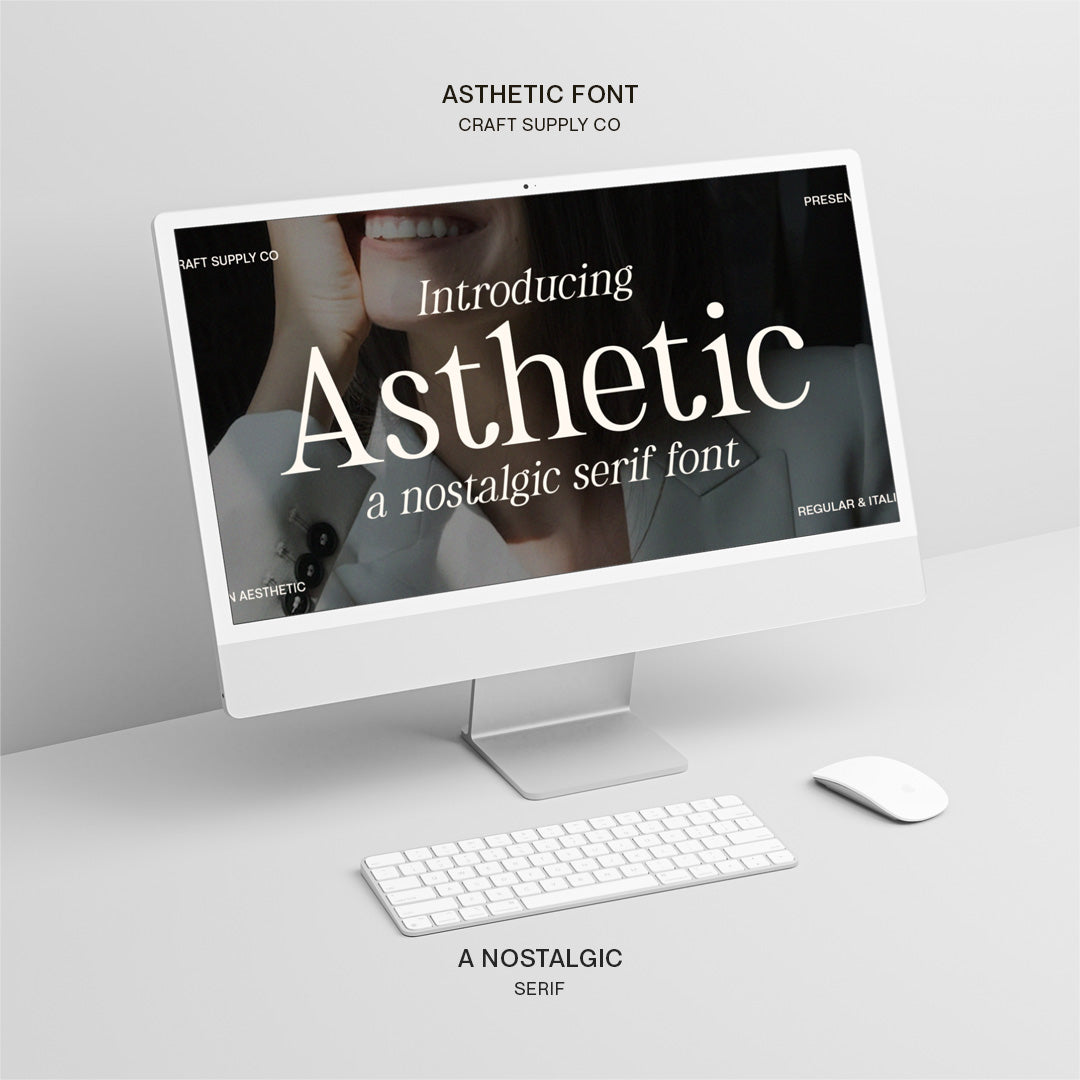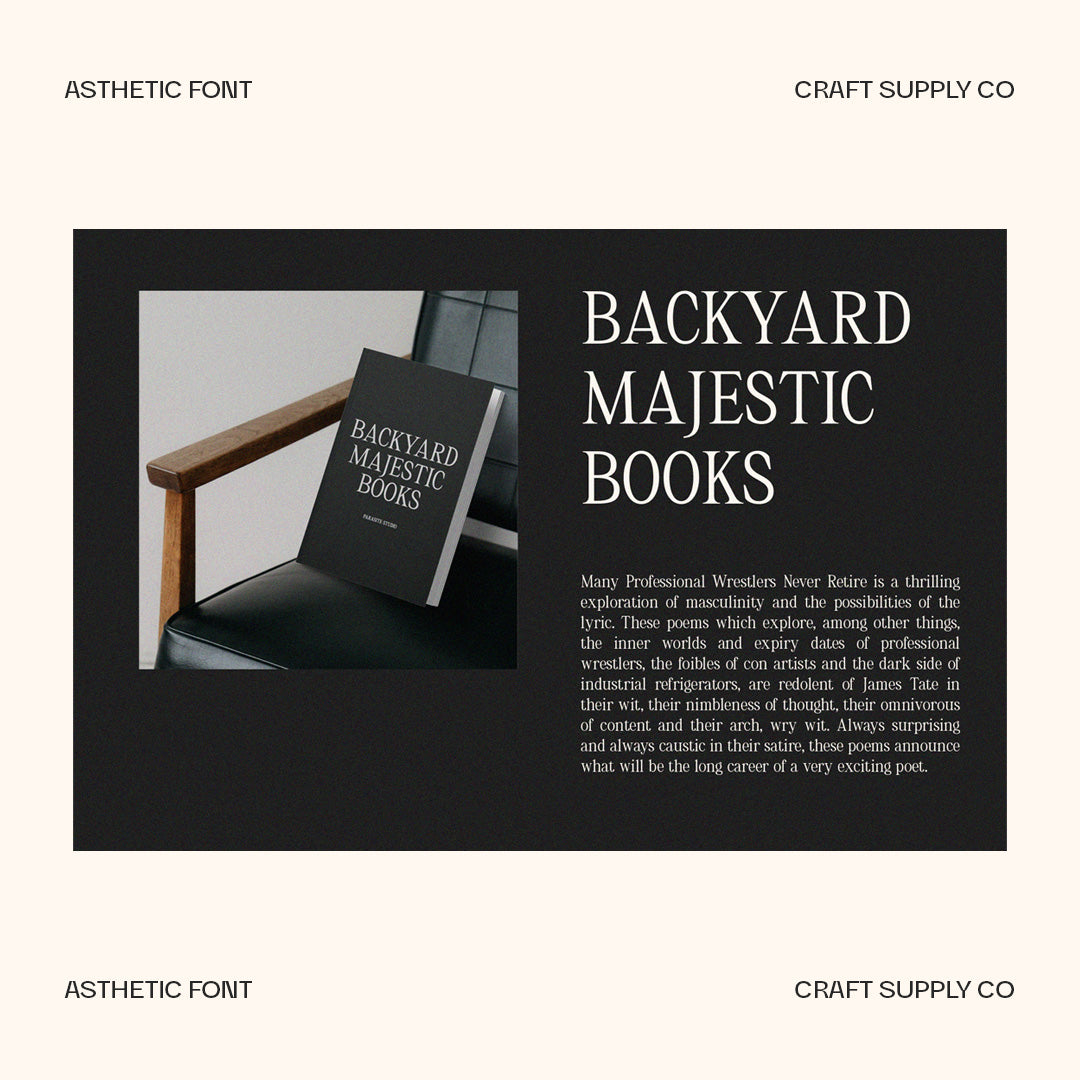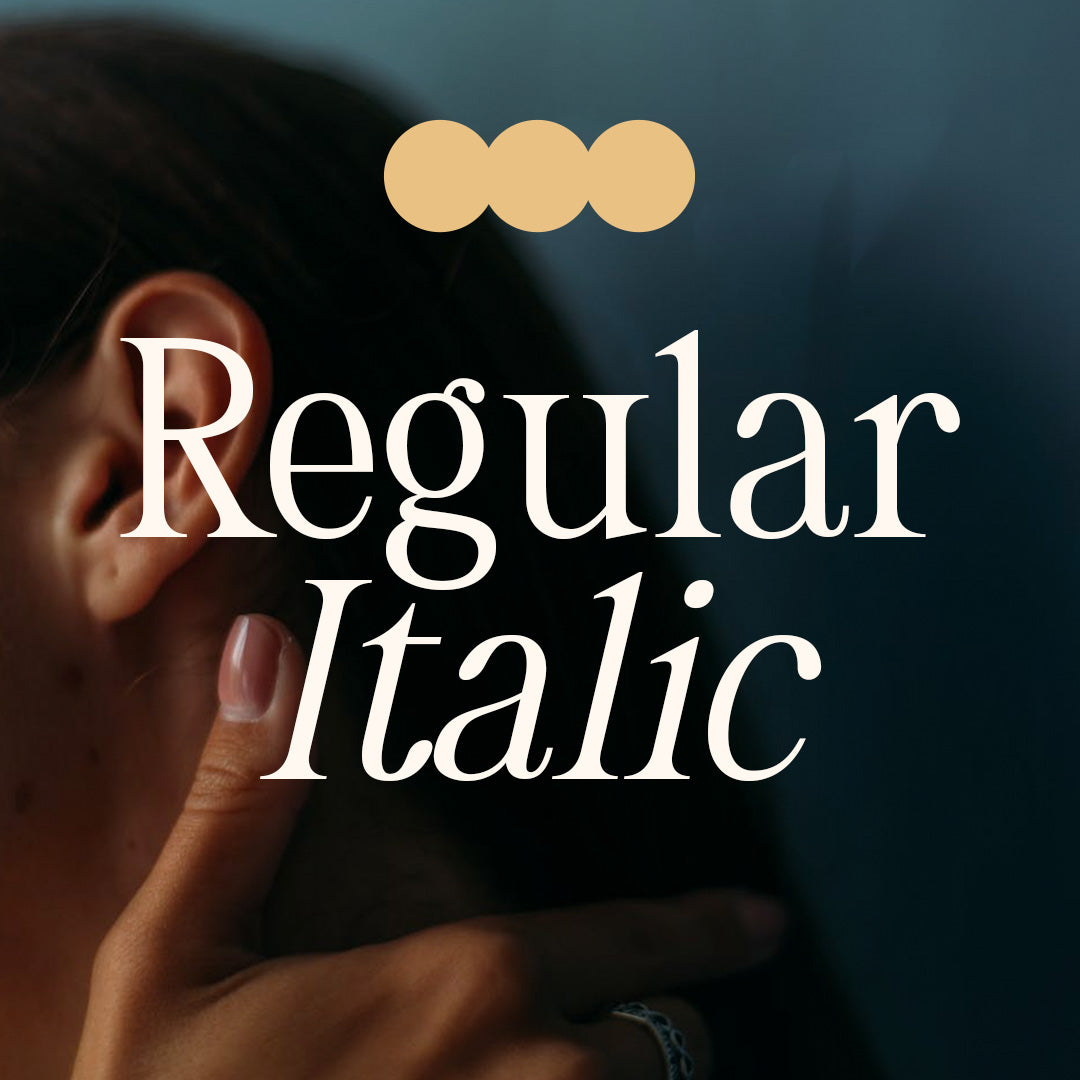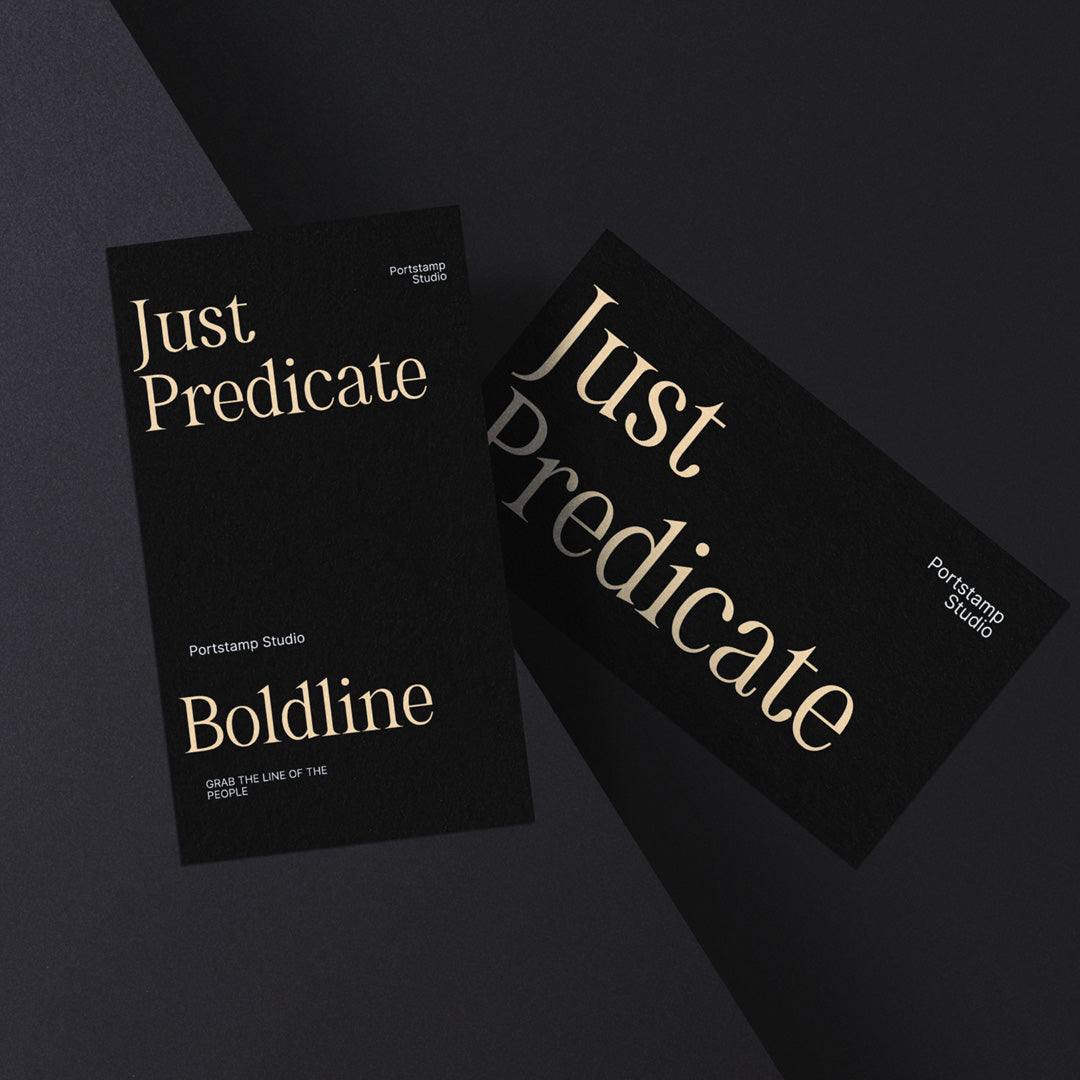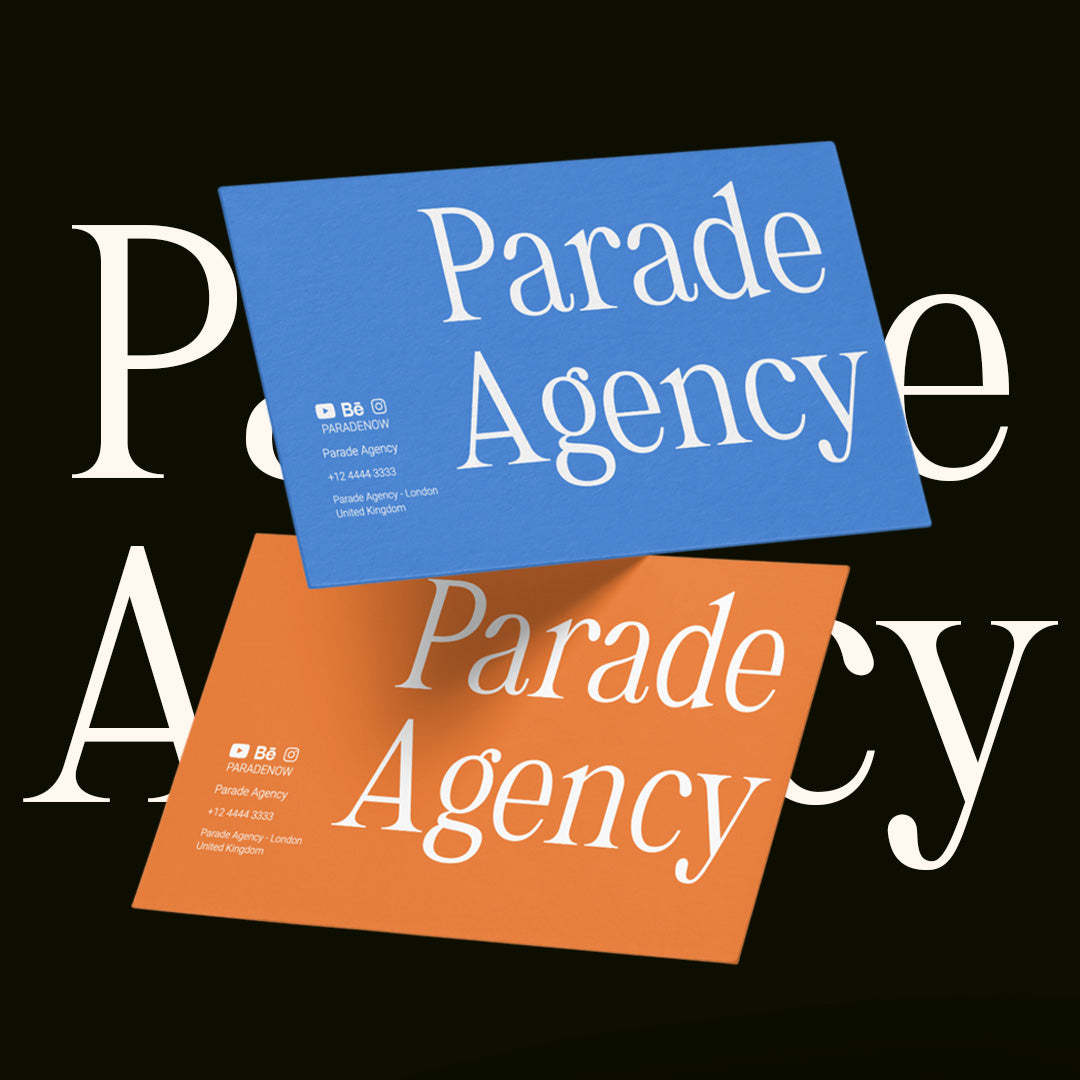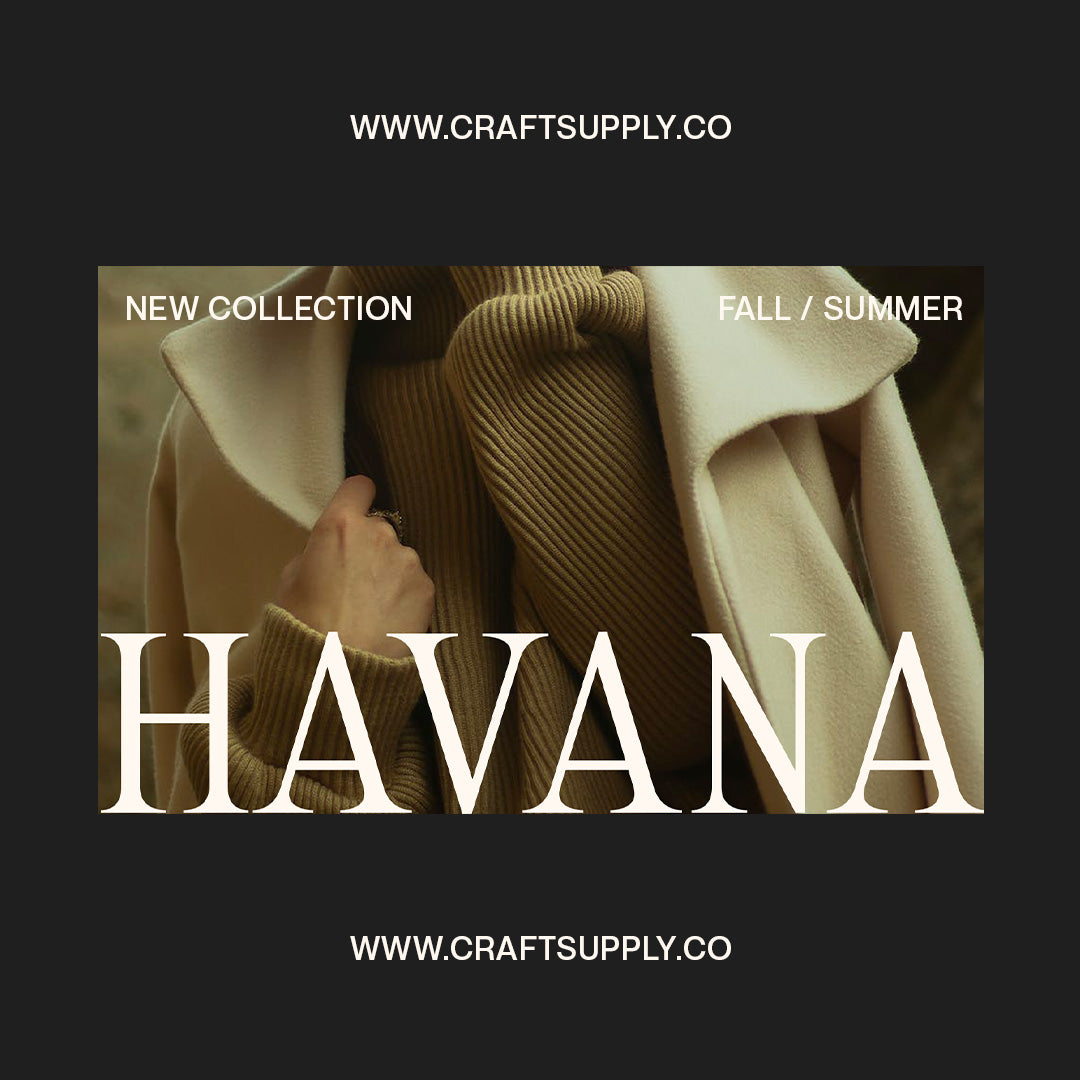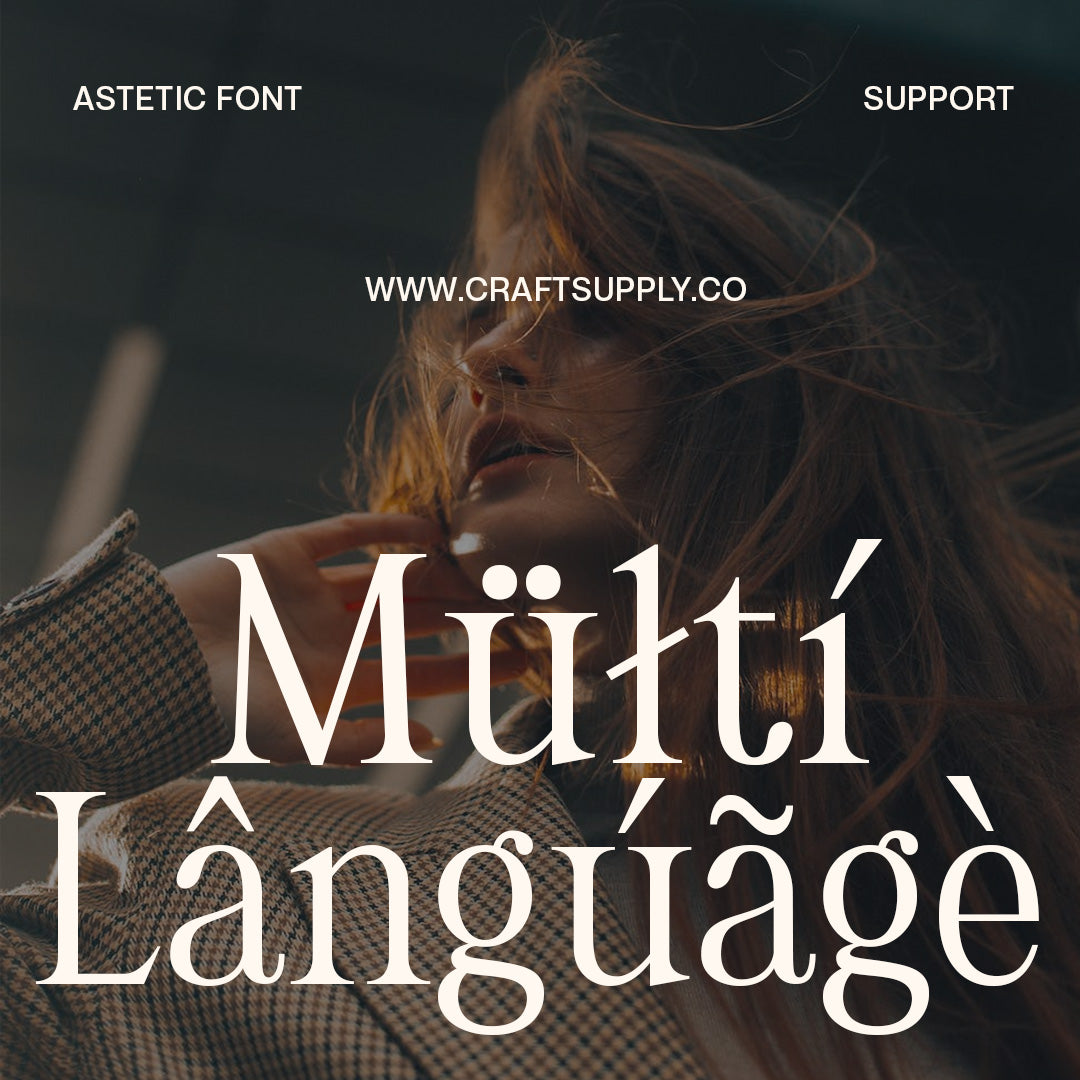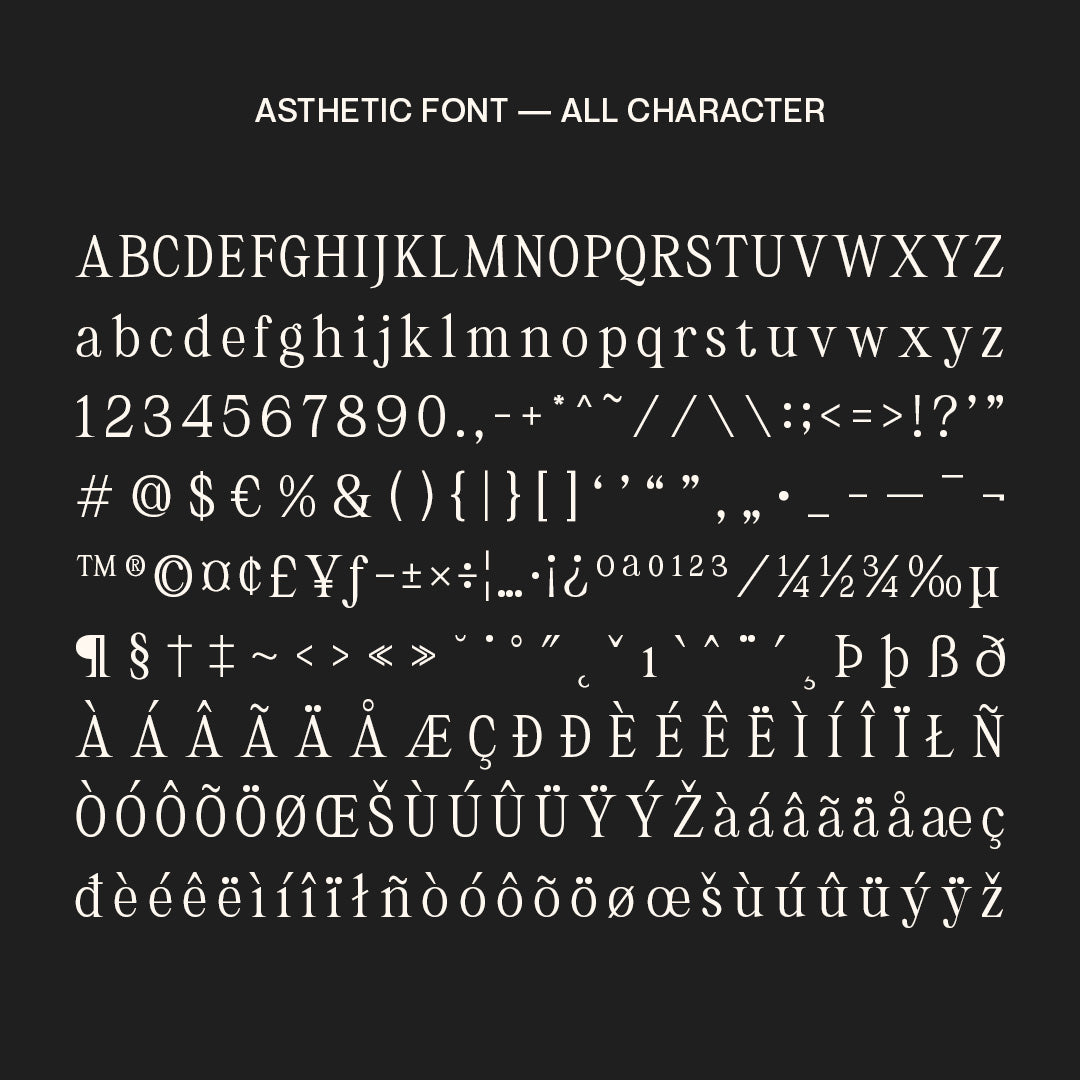
Asthetic – Nostalgic Serif Font
Introducing Asthetic: A nostalgic serif font that channels the essence of bygone eras. With its timeless lines and vintage charm, Asthetic evokes a sense of nostalgia in your projects. Infuse your designs with the allure of the past using Asthetic’s classic and enduring style.
This typeface is ideal for greeting card, packaging, brand identity, poster, or any purpose to make your design project look eye catching and trendy. Feel free to play with this typeface!
Asthetic is a nostalgic serif font that includes both Regular and Italic styles, featuring uppercase and lowercase letters, numerals, punctuation, and multilingual accents. This typeface is PUA encoded and designed to add a vintage charm to various design projects.